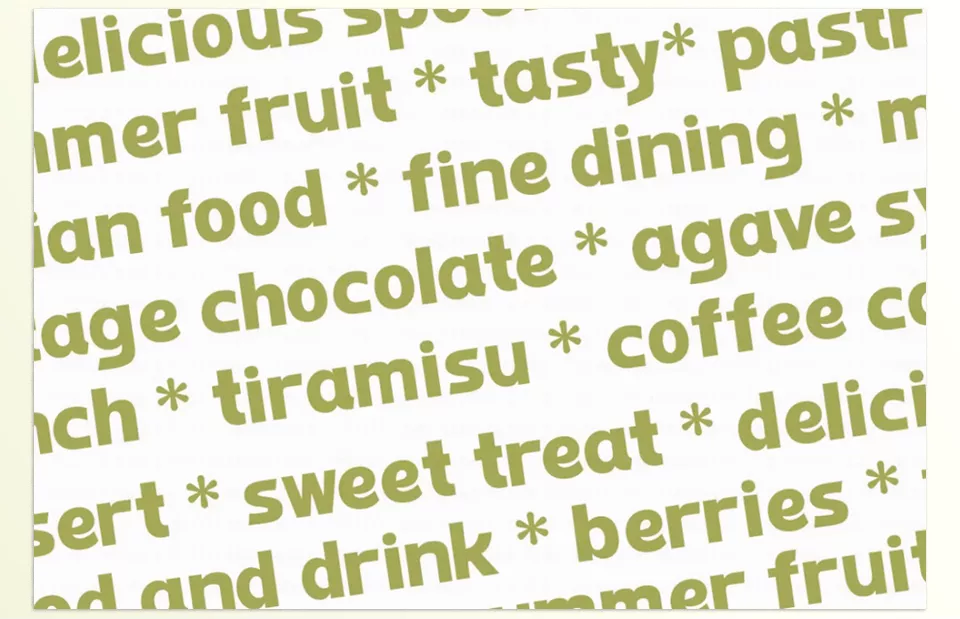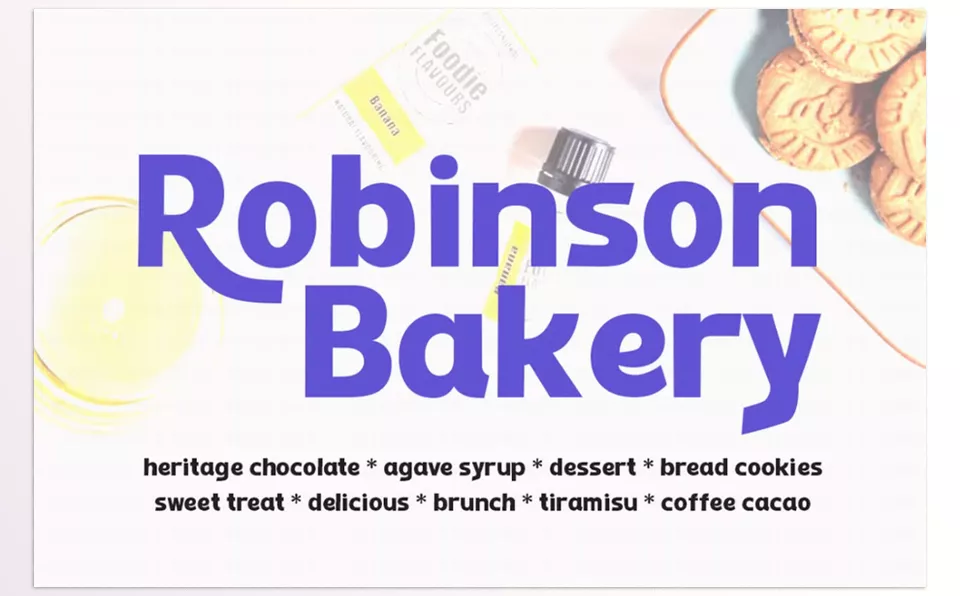
Creative Market – Rockines captivates retro vibes with vintage finesse, showing off as a sophisticated and stylish font. This typeface shines for logos, invitations, and home decor projects due to its elegance-adding features, having been carefully hand-drawn with precision.
Genesis Lab – Rockines Features
• Punctuation Diversity: Incorporates dashes, quotes, and open and closed punctuation.
• Subscript and Superscript Support: Currency symbols, math symbols, and super and sub symbols are included.
• Designer’s Favorites: Contains standard ligatures alongside numerators and denominators.
• Open Punctuation: Includes open and closed punctuation, dashes, and quotes.
• Decorative Swashes: Outstanding swash characters are included for added flair.
Image 1: Vintage charm transforms timeless projects into unmatched masterpieces with Rockines.
Creative Market - Rockines - Vintage charm transforms timeless projects into unmatched masterpieces with Rockines.
Image 2: With the Rockies, designs are no longer ordinary. The font’s classic appeal turns them into extraordinary works of art.
Creative Market - Rockines - With the Rockies, designs are no longer ordinary. The font’s classic appeal turns them into extraordinary works of art.